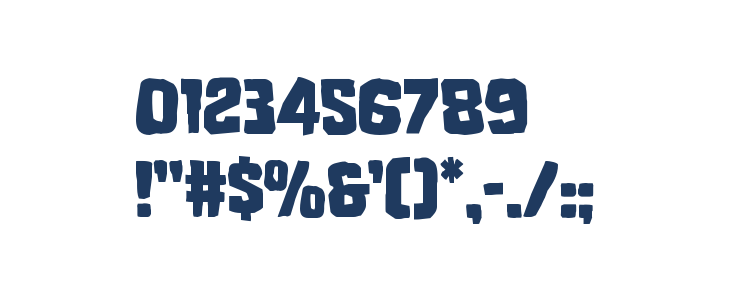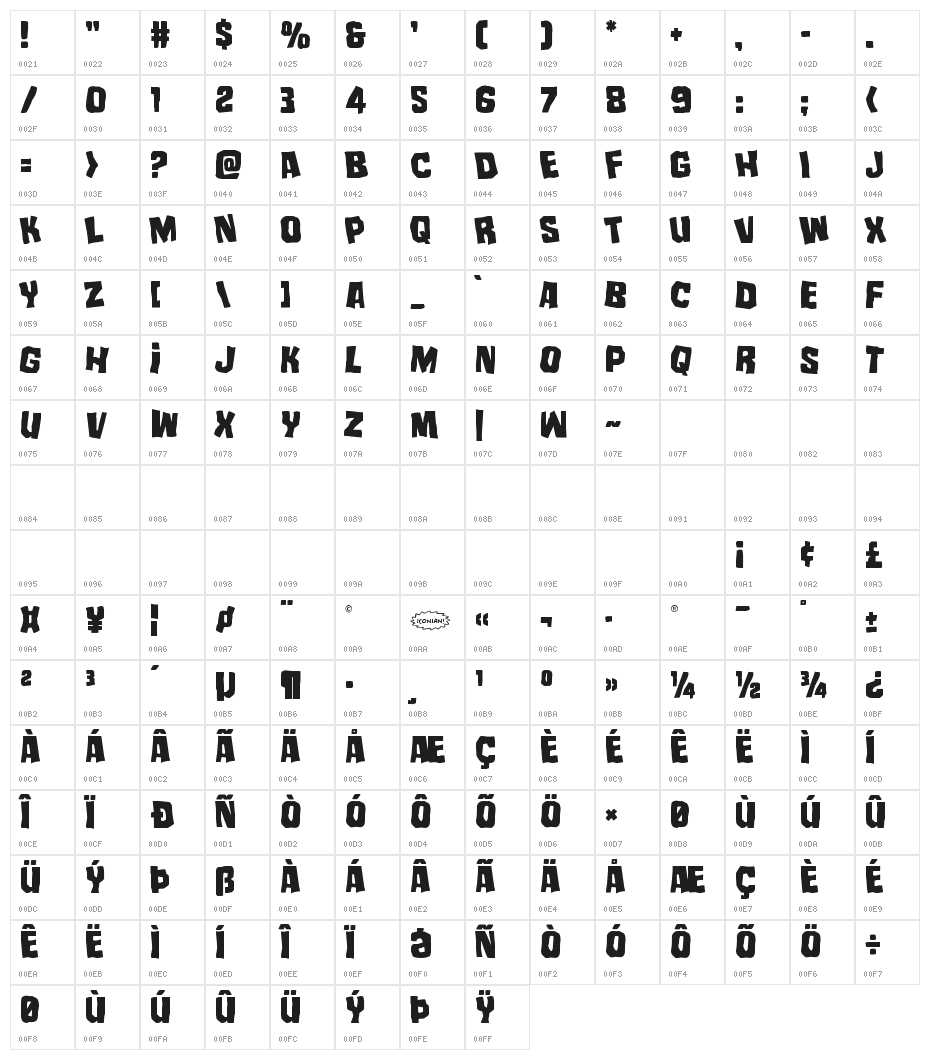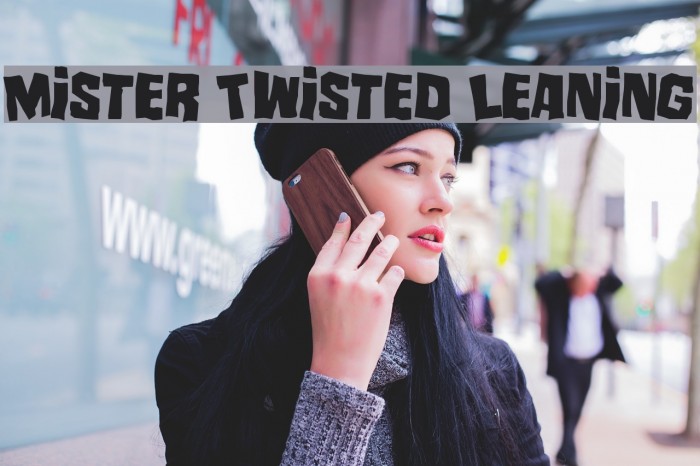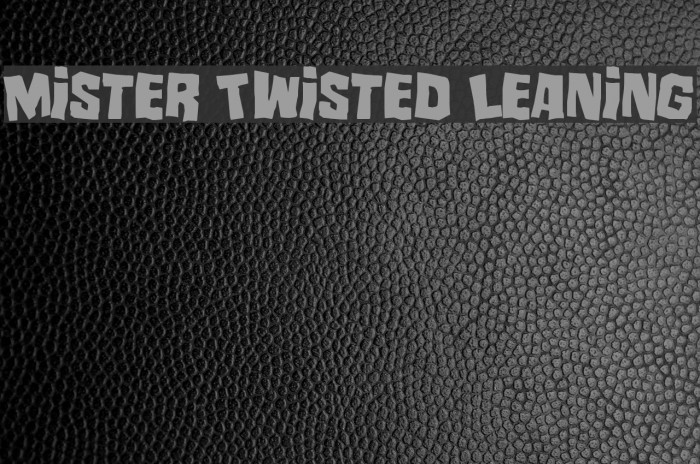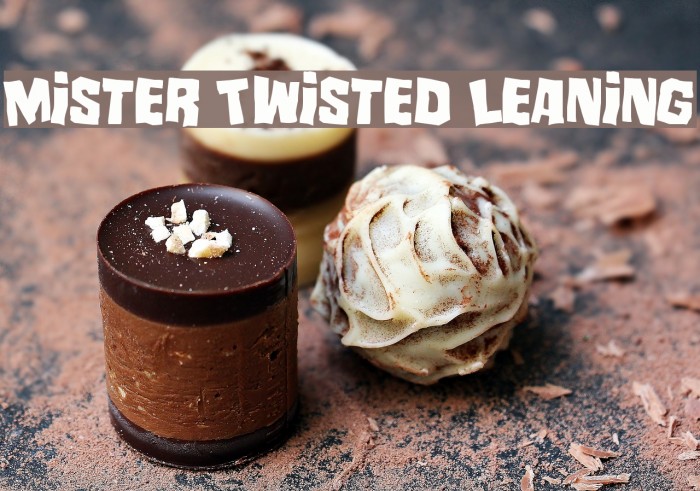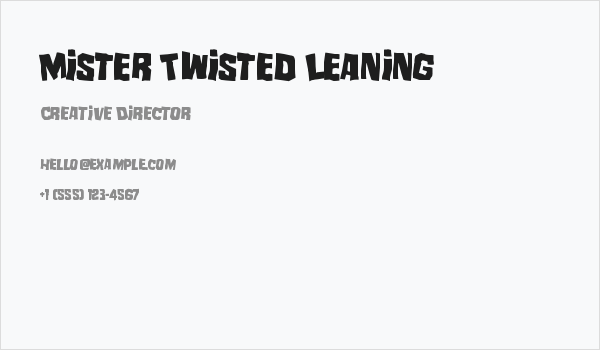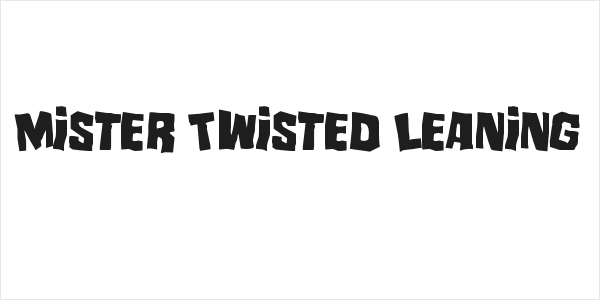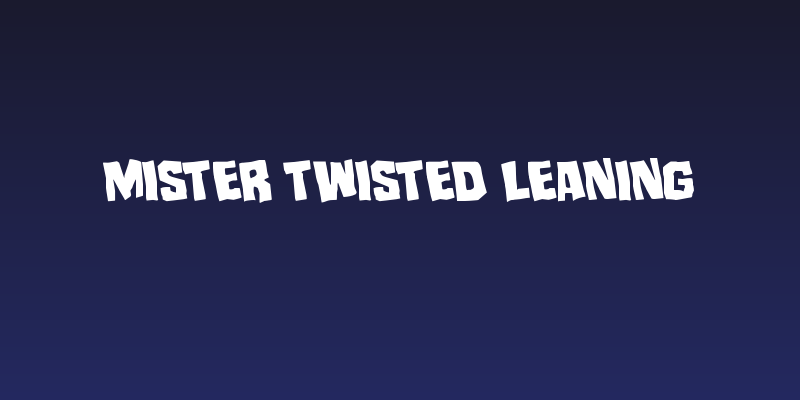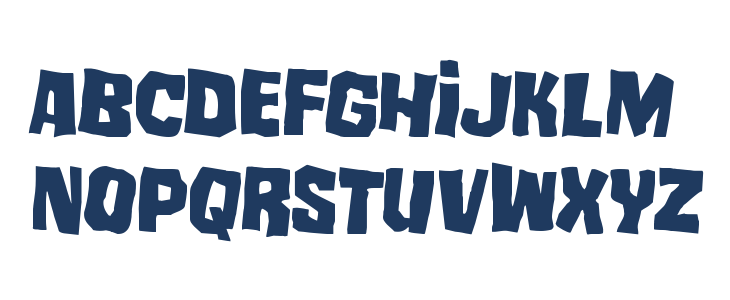
Mister Twisted Leaning Font
Mister Twisted Leaning Description
This font features a bold and playful design with a distinct leaning and twisted appearance. Each character exhibits a unique, irregular shape that adds a sense of movement and energy. The bold strokes and uneven edges give it a hand-drawn, artistic feel, making it stand out in any design. The uppercase and lowercase letters maintain a consistent style, while the numbers and special characters integrate seamlessly, offering a comprehensive set for creative projects. Its quirky and dynamic nature makes it ideal for eye-catching headlines and playful designs.
| Overall Style | Playful, Artistic, Energetic |
| Use Case | Headlines, Posters, Branding |
| Proposed Projects | Ideal for posters, children's books, comic titles, and playful branding. |